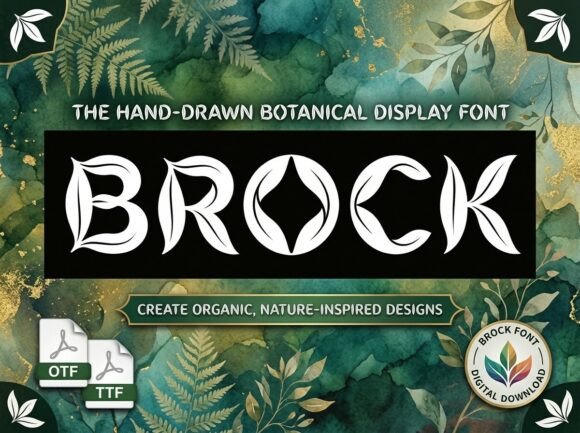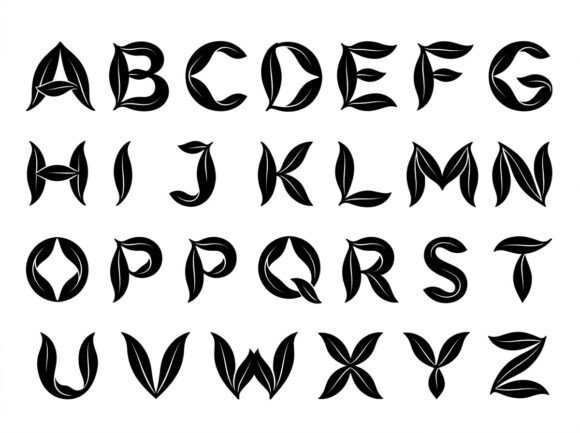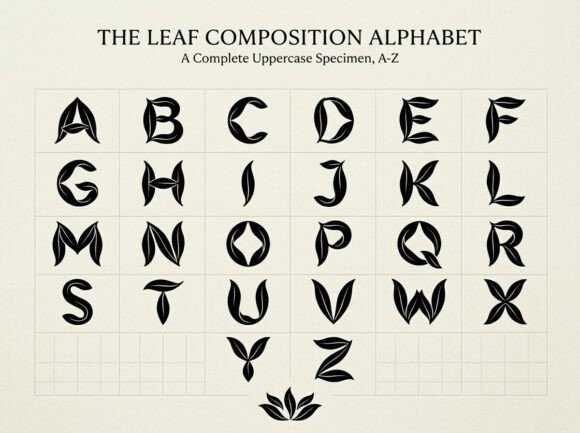
Introducing Brock Font: The Ultimate Display Typeface for Creative Rebels
In the world of typography, a new star has emerged: Brock Font. This avant-garde decorative display font is engineered to be the focal point of any composition, making it perfect for creators who refuse to blend in. Characterized by its commanding visual personality and unique artistic flourishes, Brock Font is a game-changer for designers and crafters looking to make a statement.
A Font that Dares to be Different
Brock Font is not just a typeface; it’s an experience. With its strong, artistic soul and high-end, polished finish, this font is suitable for a wide range of applications, from luxury packaging to experimental editorial layouts. Whether you’re a seasoned designer or a crafty entrepreneur, Brock Font is the perfect tool to help you stand out from the crowd.
Ideal for High-Impact Designs
So, what makes Brock Font so special? Here are just a few areas where this incredible typeface shines:
- High-impact headlines: Brock Font is designed to grab attention and make a lasting impression. Its unique blend of artistry and sophistication makes it perfect for headlines that need to pop.
- Signature logos & branding: With its commanding visual personality, Brock Font is ideal for creating distinctive logos and branding materials that set you apart from the competition.
- Conceptual packaging: Add a touch of luxury and sophistication to your packaging designs with Brock Font. Its high-end finish and artistic flair make it perfect for premium products.
- Poster & social media design: Whether you’re creating posters, social media graphics, or other visual content, Brock Font is the perfect choice for making a bold statement.
A Note on Font Style
Please note that Brock Font is an all-caps (uppercase only) display typeface. By omitting lowercase characters, the designer has focused entirely on the intricate craftsmanship of every individual letter, ensuring each one acts as a standalone work of art. This unique approach allows for a level of detail and sophistication that’s unmatched in traditional typefaces.
Unlock Endless Creative Possibilities
With Brock Font, the possibilities are endless. Whether you’re a designer, crafty entrepreneur, or simply someone who loves to create, this incredible typeface is sure to inspire. Here are just a few ideas to get you started:
- Create stunning posters and social media graphics that grab attention.
- Design luxury packaging that stands out on store shelves.
- Develop a distinctive brand identity that sets you apart from the competition.
- Experiment with unique typography and artistic expressions.
In conclusion, Brock Font is a game-changing display typeface that’s perfect for creative rebels who refuse to blend in. With its commanding visual personality, unique artistic flourishes, and high-end finish, this font is suitable for a wide range of applications. Whether you’re a designer, crafty entrepreneur, or simply someone who loves to create, Brock Font is the perfect tool to help you unlock your full creative potential.